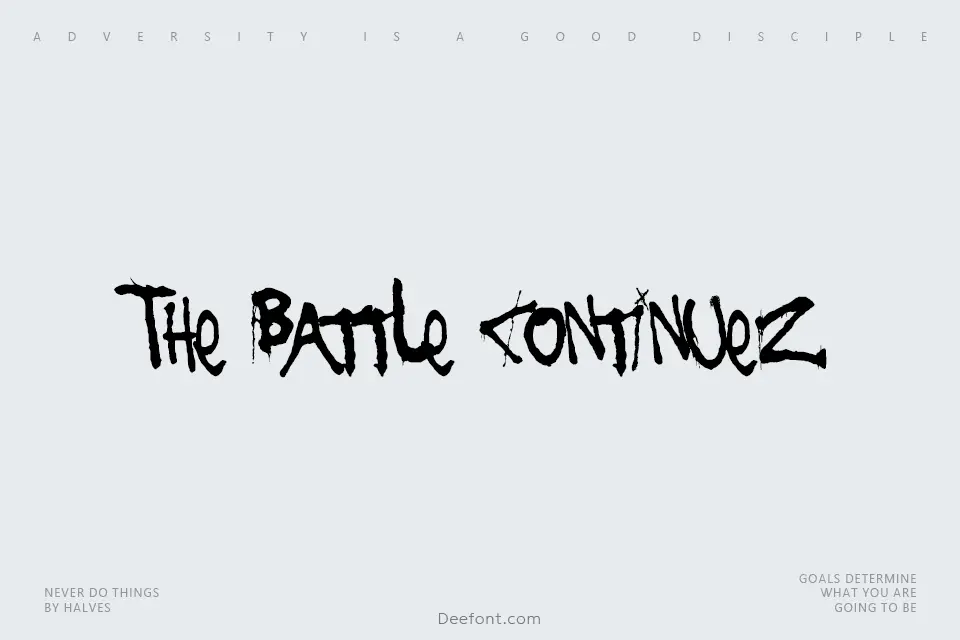
The Battle Continuez Font
The Battle Continuez is a graffiti-inspired script font designed with bold, irregular characters and distinctive spray paint aesthetics. This urban-themed typeface features hand-drawn quality letterforms with splatters and drips, making it ideal for street art projects, music album covers, edgy branding, and rebellious design applications. With 653 glyphs and comprehensive character support, the font captures the raw energy and individualistic spirit of counterculture typography, perfect for creating striking, streetwise visual communications.
Designed by:Christopher Hansen